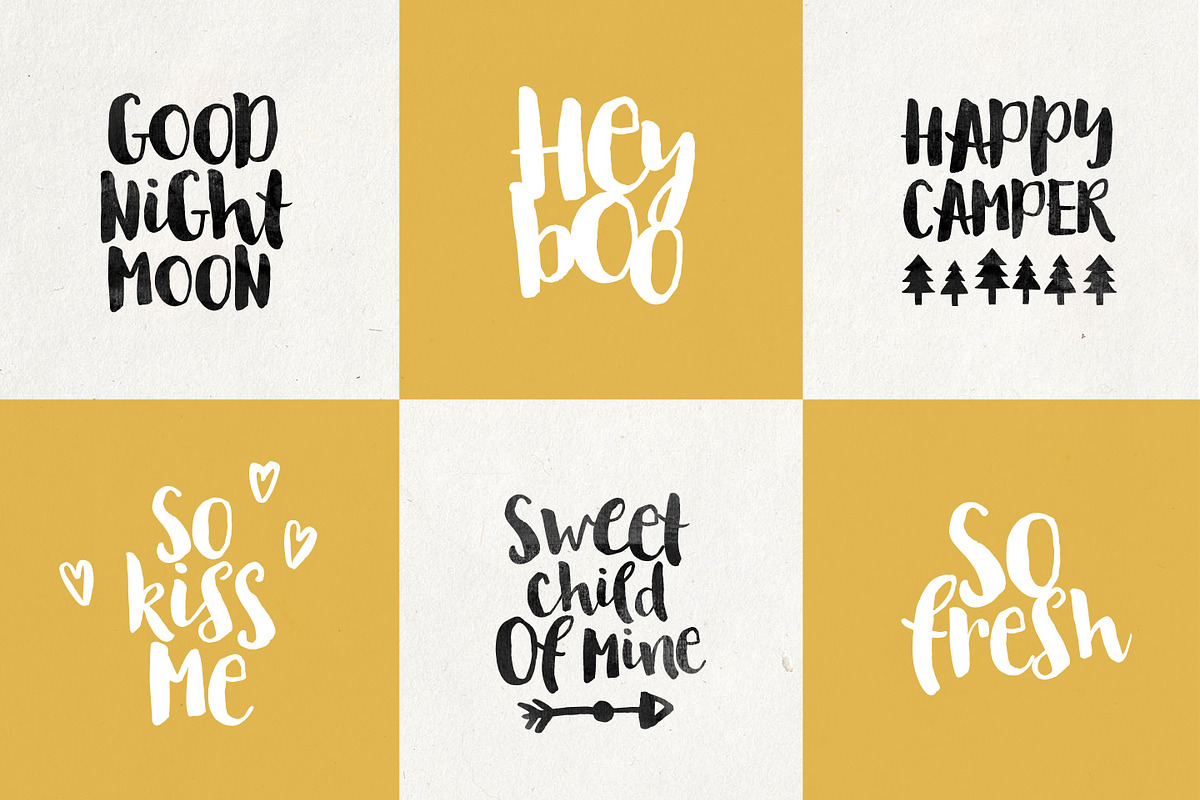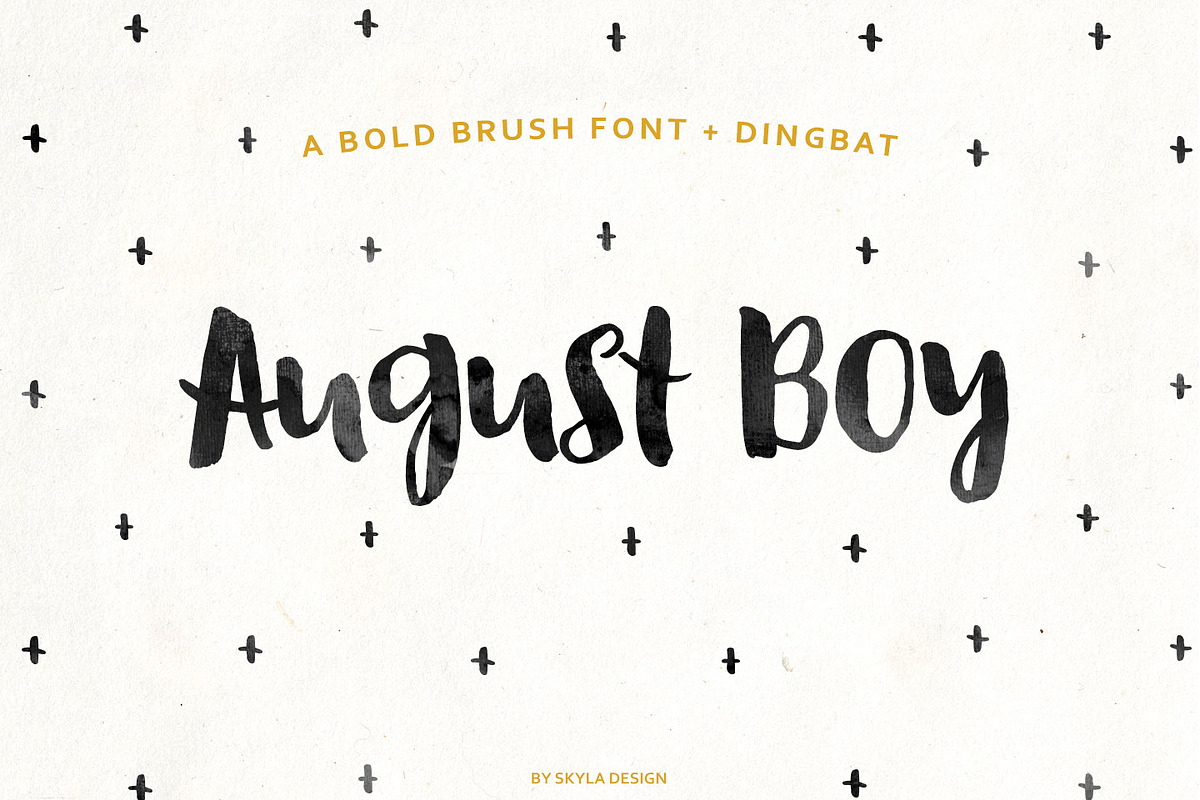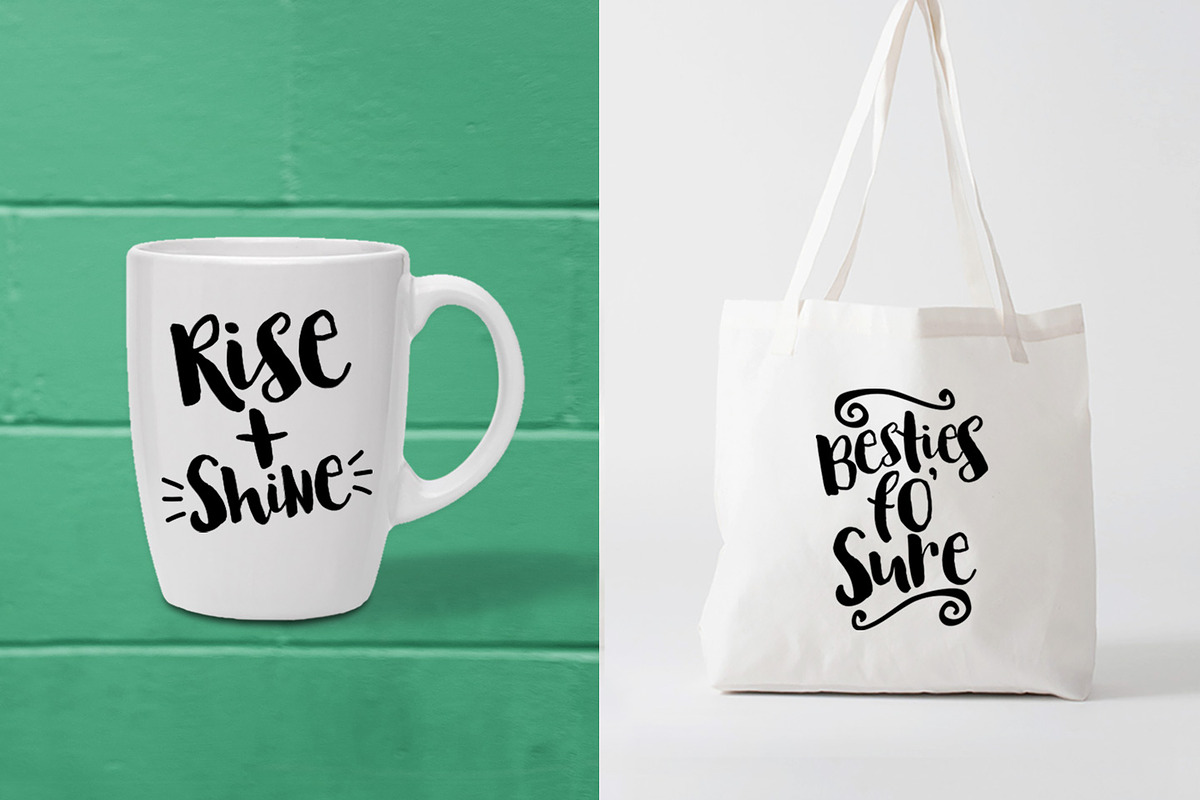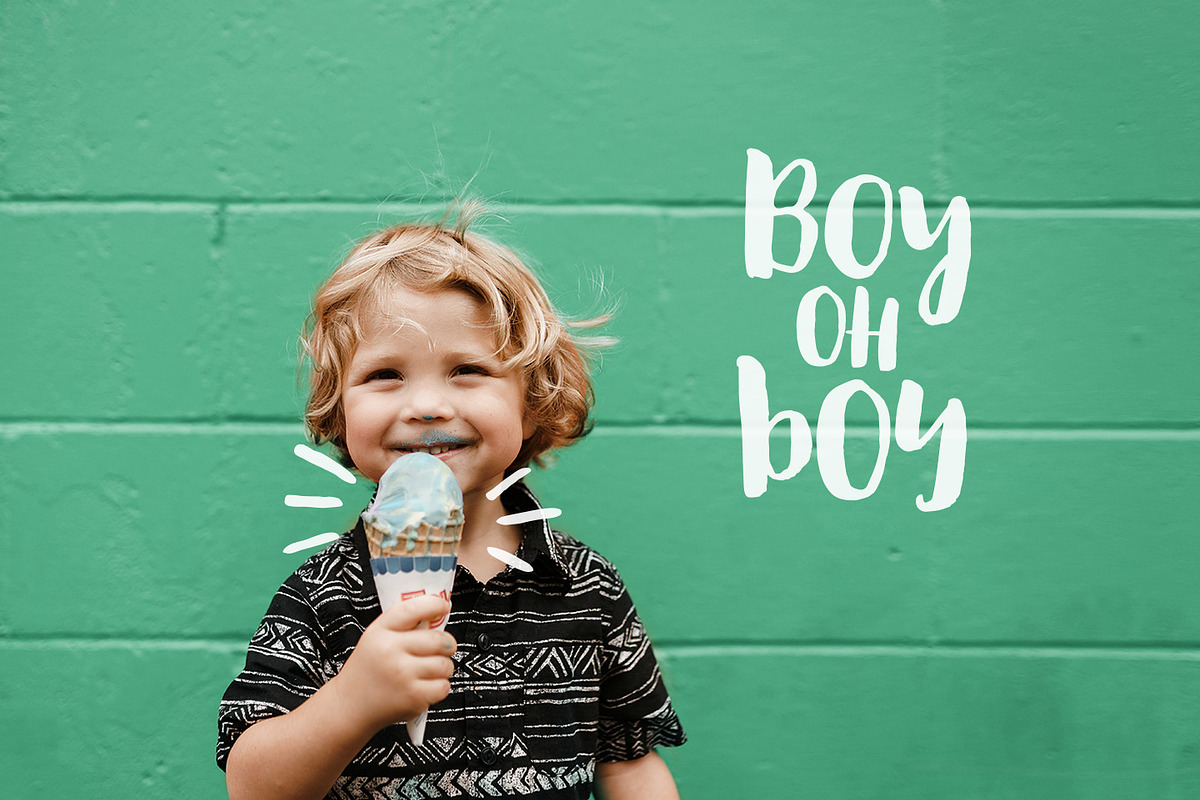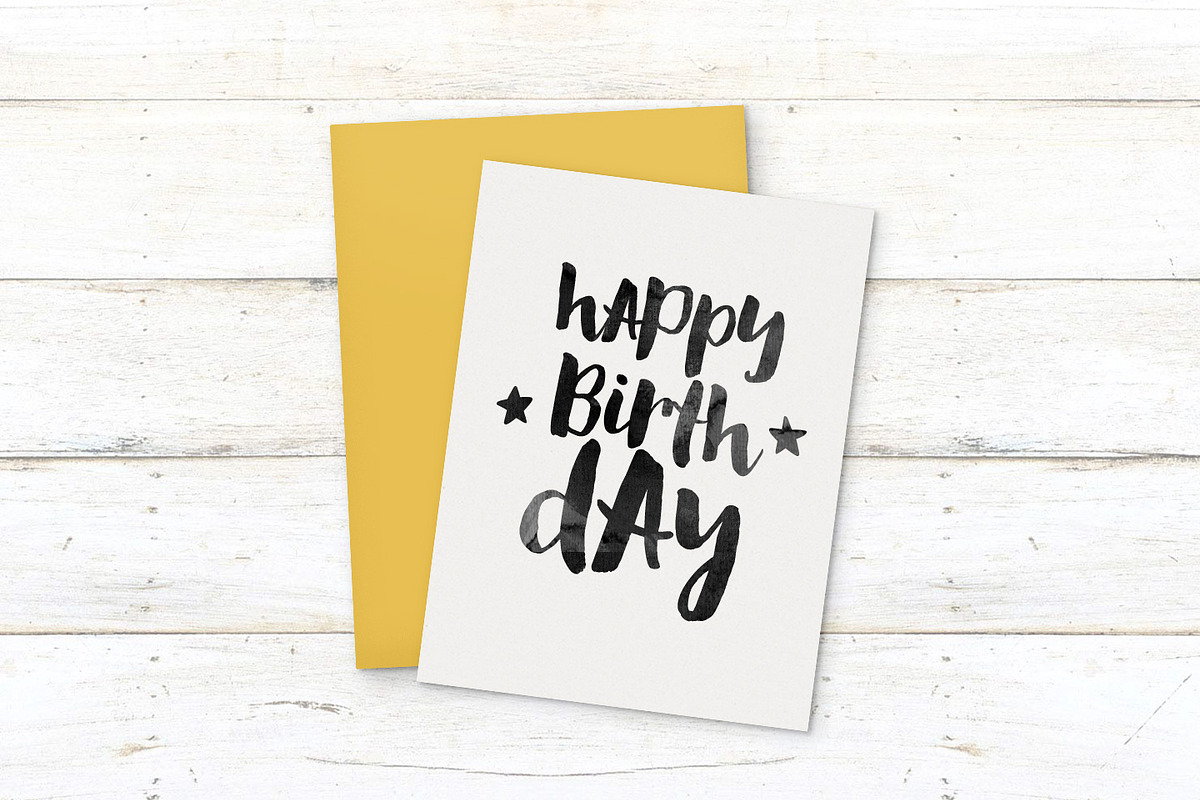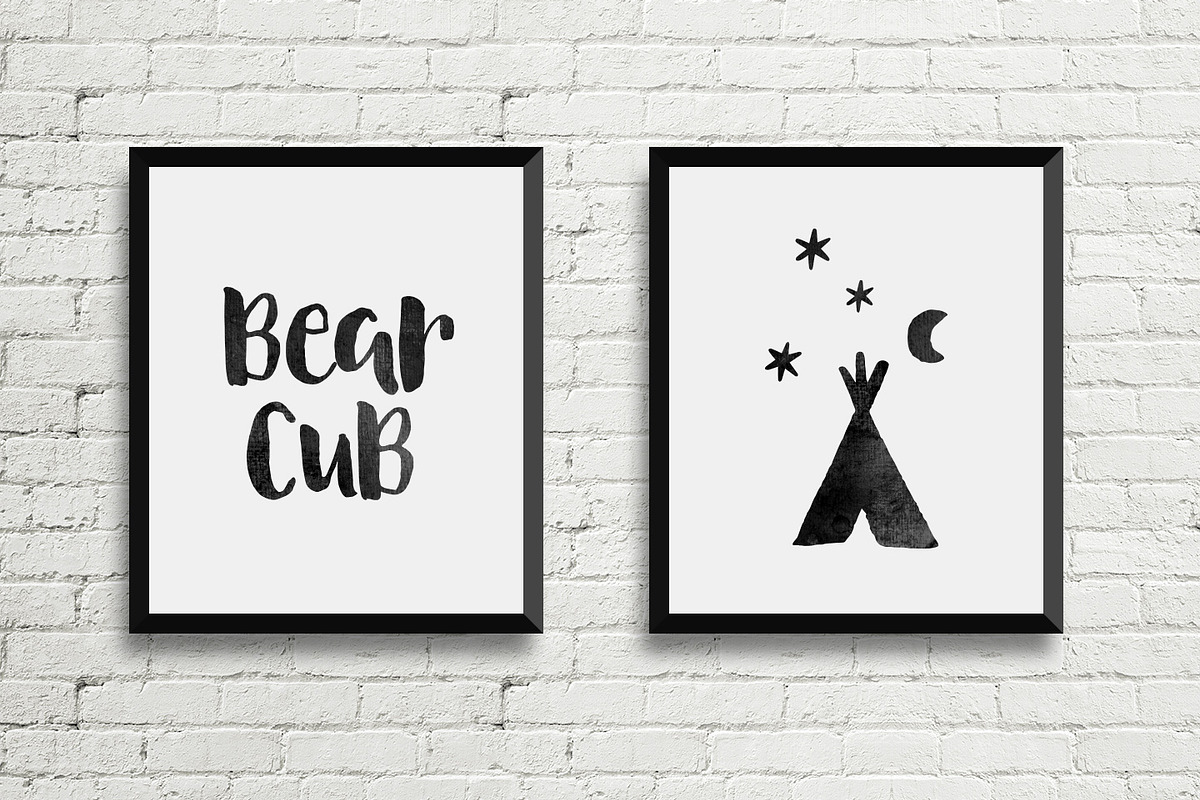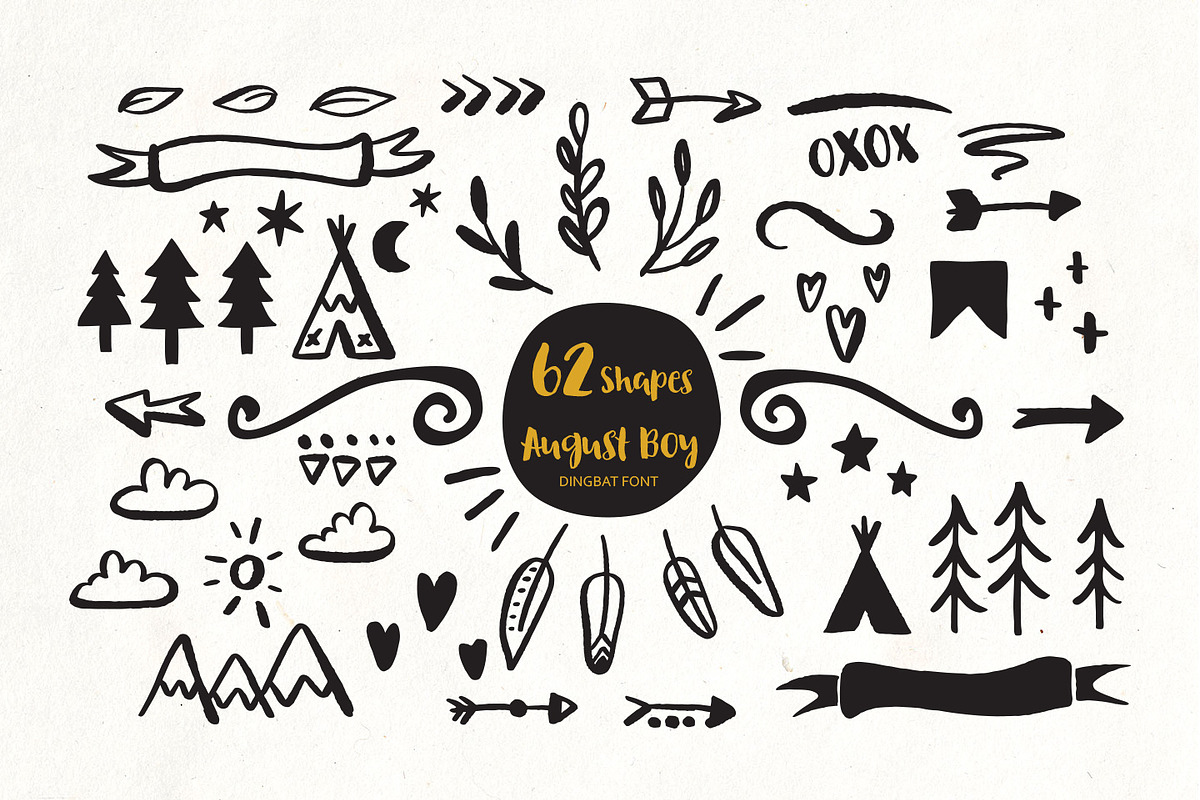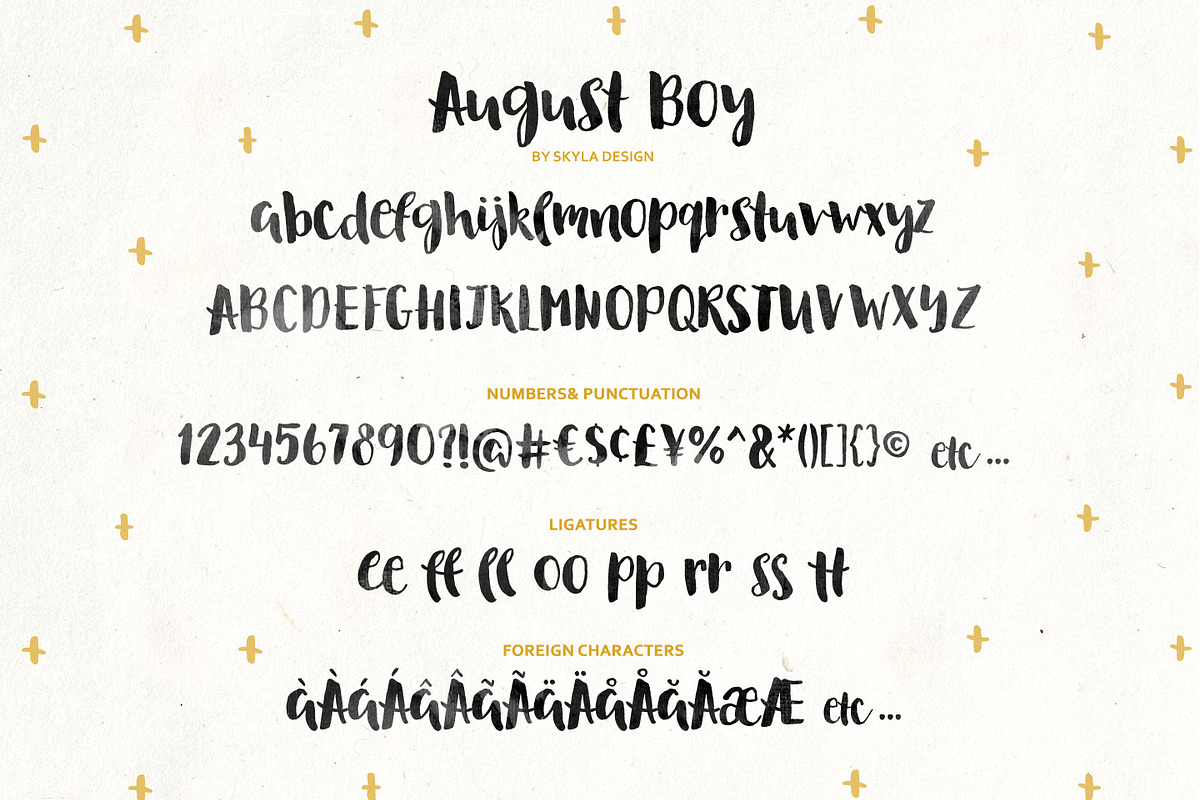
August Boy bold brush font + Dingbat
August Boy bold brush font + Dingbat by Angele Kamp is a font selected for branding, posters, packaging, typography.
- August Boy Regular contains a total of 243 characters, including lowercase, uppercase, numbers, punctuation, ligatures & international chara
- August Boy Dingbat includes 62 shapes which you can type out using the characters a-z, A-Z, 0-9.
Why August Boy bold brush font + Dingbat is worth a look
August Boy bold brush font + Dingbat by Angele Kamp fits naturally into Branding, posters, packaging, typography.